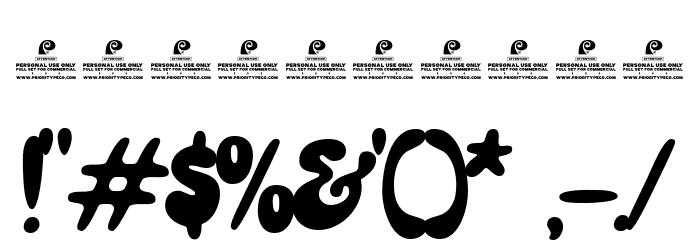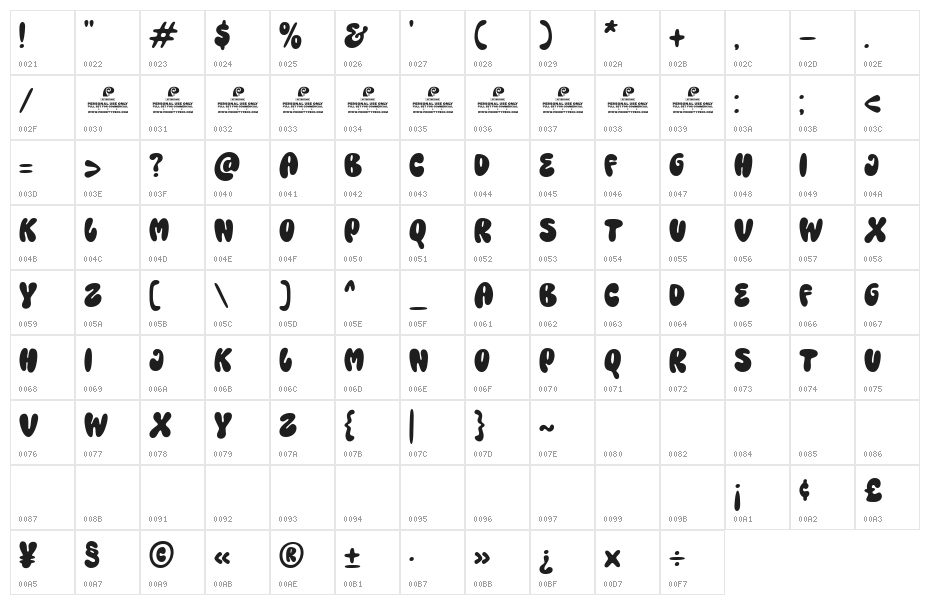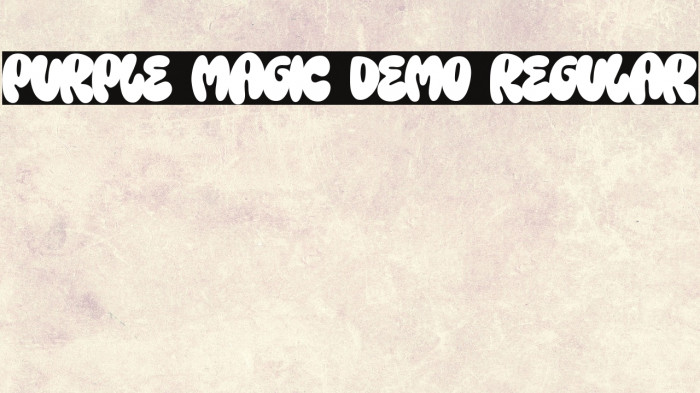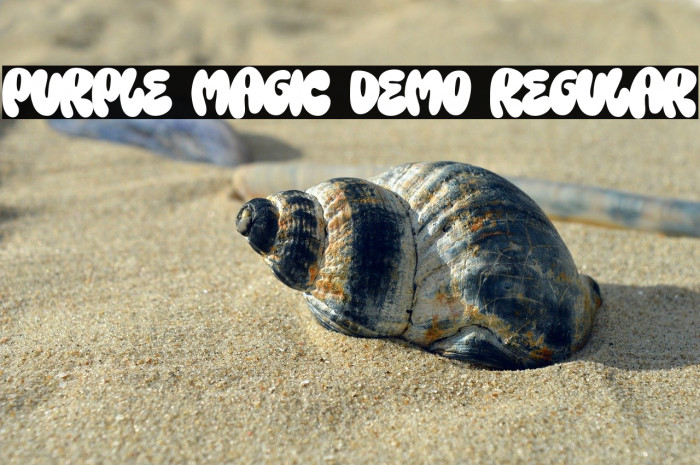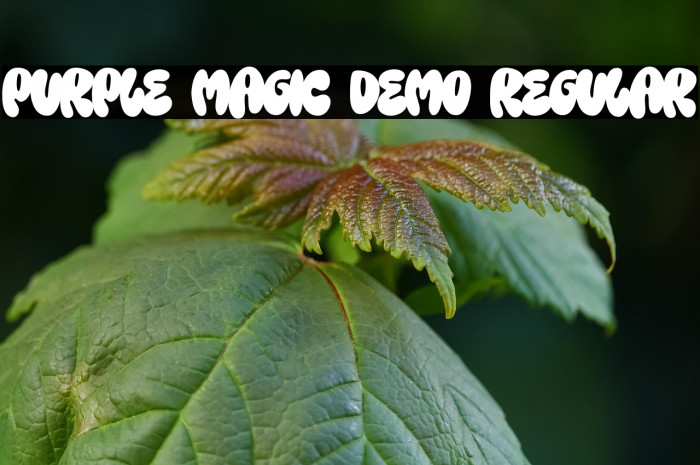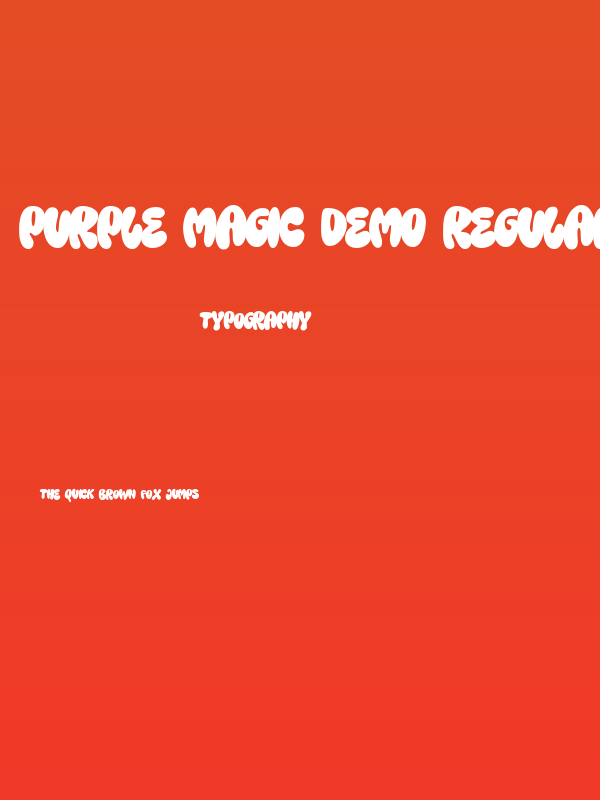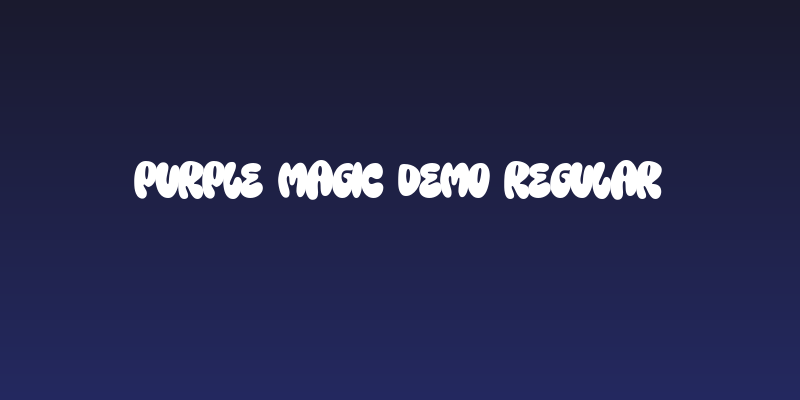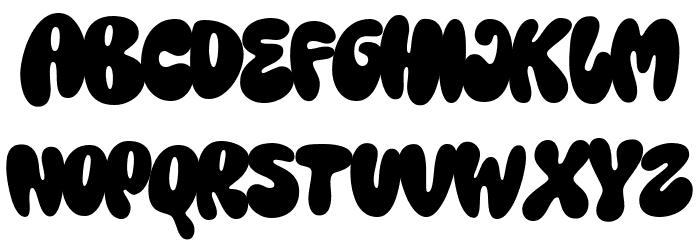
Purple Magic DEMO Regular Font
Purple Magic DEMO Regular Description
This font features a bold and playful design with thick, rounded strokes that give it a bubbly and whimsical appearance. The characters are heavily weighted, creating a strong visual impact that is both fun and eye-catching. The rounded edges and consistent stroke width contribute to a cohesive and friendly look, making it suitable for creative and informal applications. The font's style is reminiscent of retro and pop art influences, adding a touch of nostalgia and charm. Its unique character shapes and bold presence make it ideal for projects that require a lively and engaging typeface.